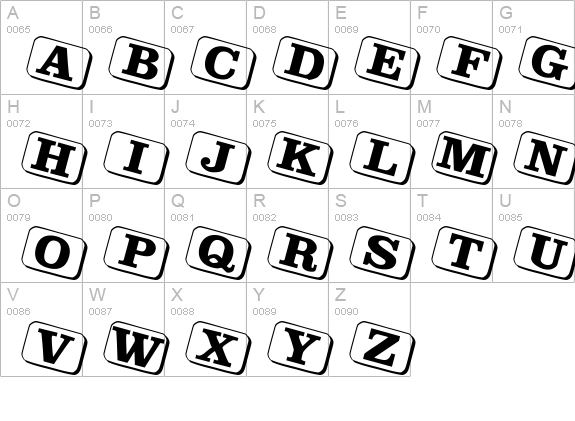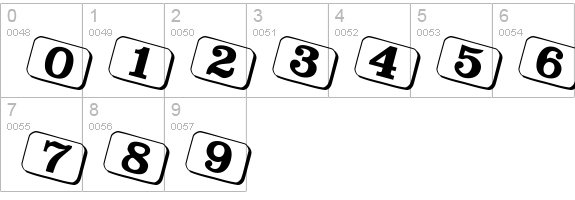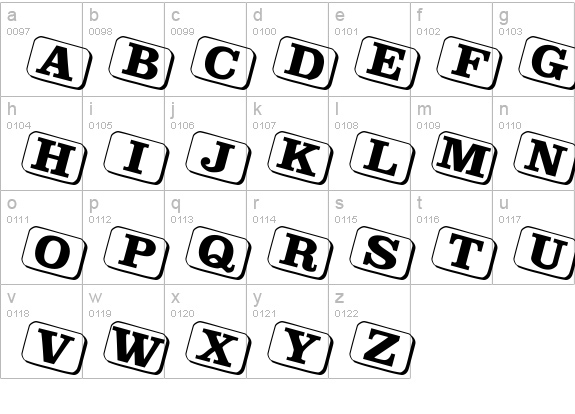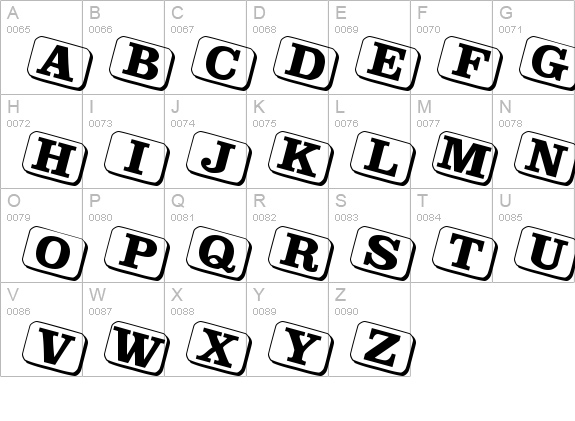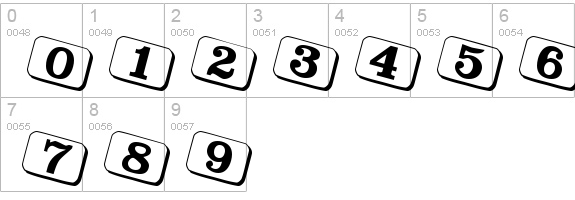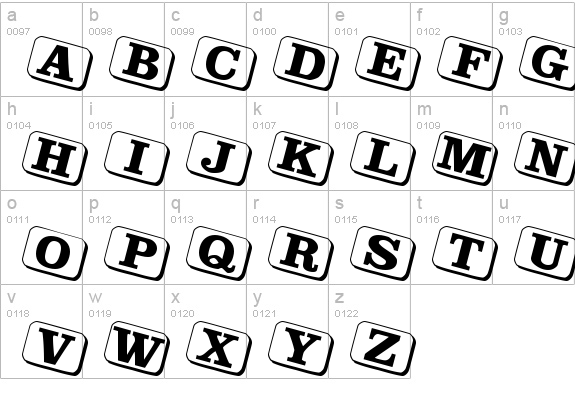
JoyCards Font Details
Introducing JoyCards font, a delightful and charming typeface perfect for adding a touch of joy to your designs. This whimsical font features unique characters and a playful style that is sure to brighten up any project. Whether you're creating greeting cards, invitations, or social media graphics, JoyCards font is the perfect choice to bring a smile to your audience. Best of all, JoyCards font is completely free to download at FontsMarket.com. Simply visit the website to access this fun and cheerful font for all your design needs. Add a splash of happiness to your projects with JoyCards font today!